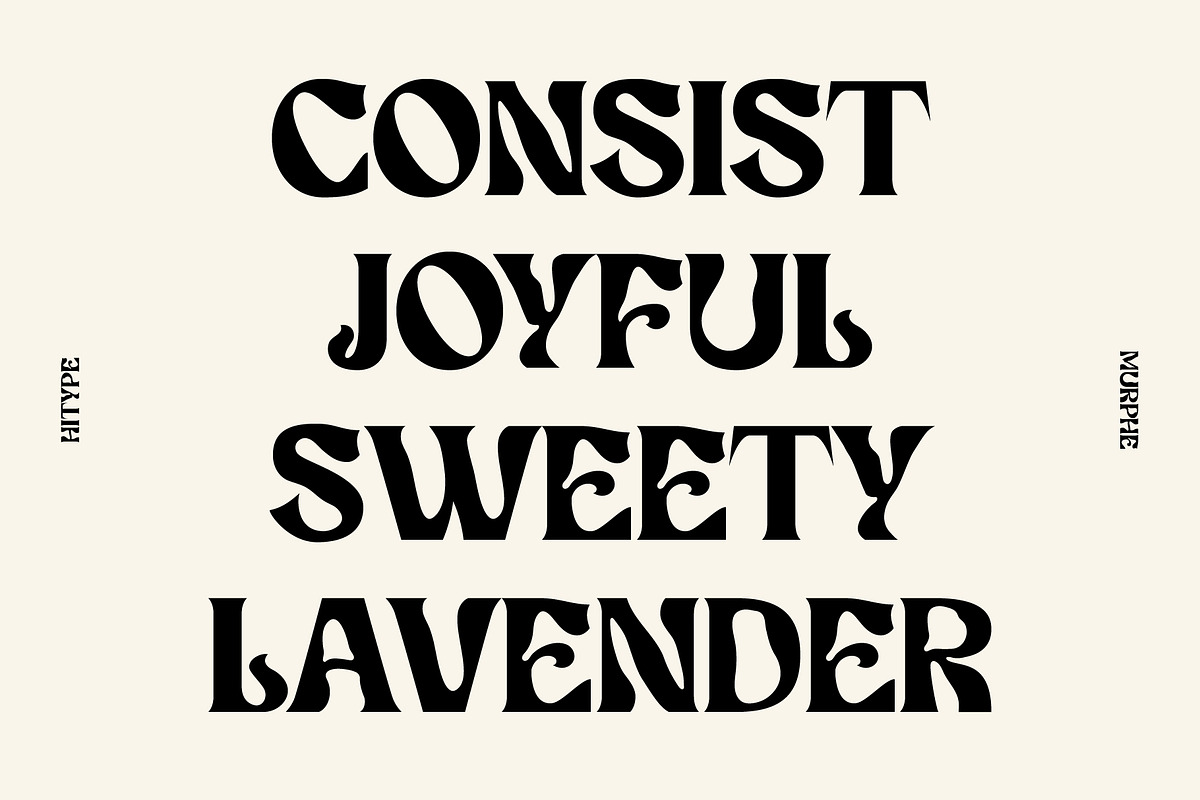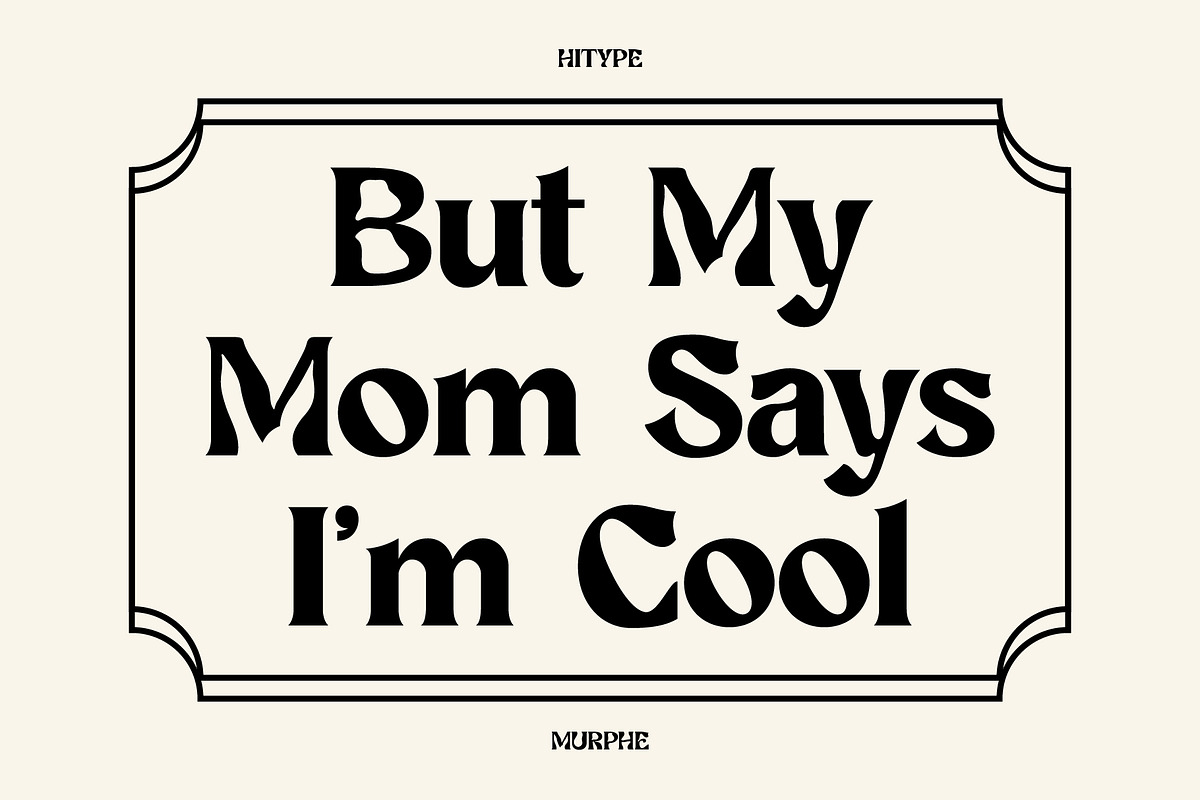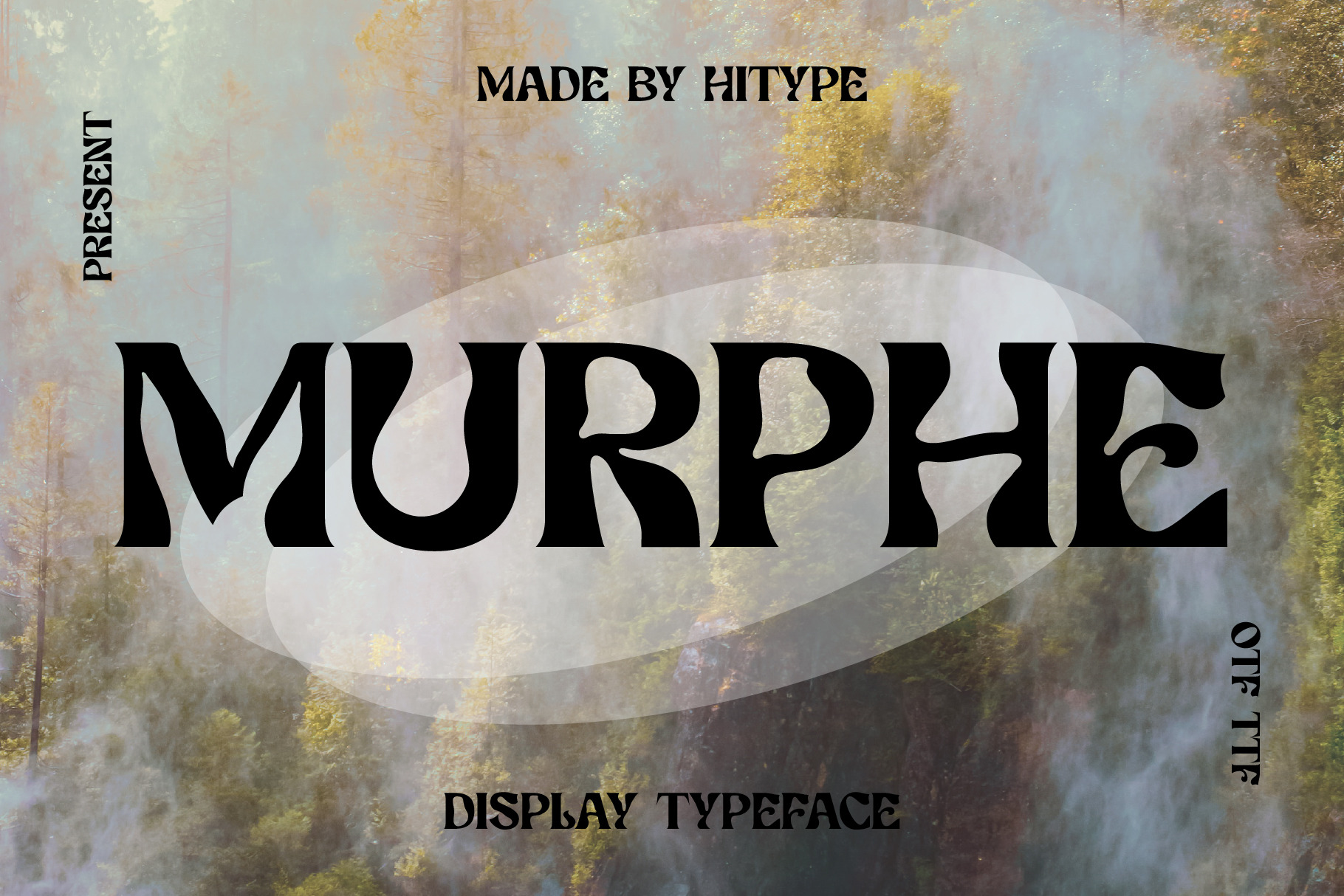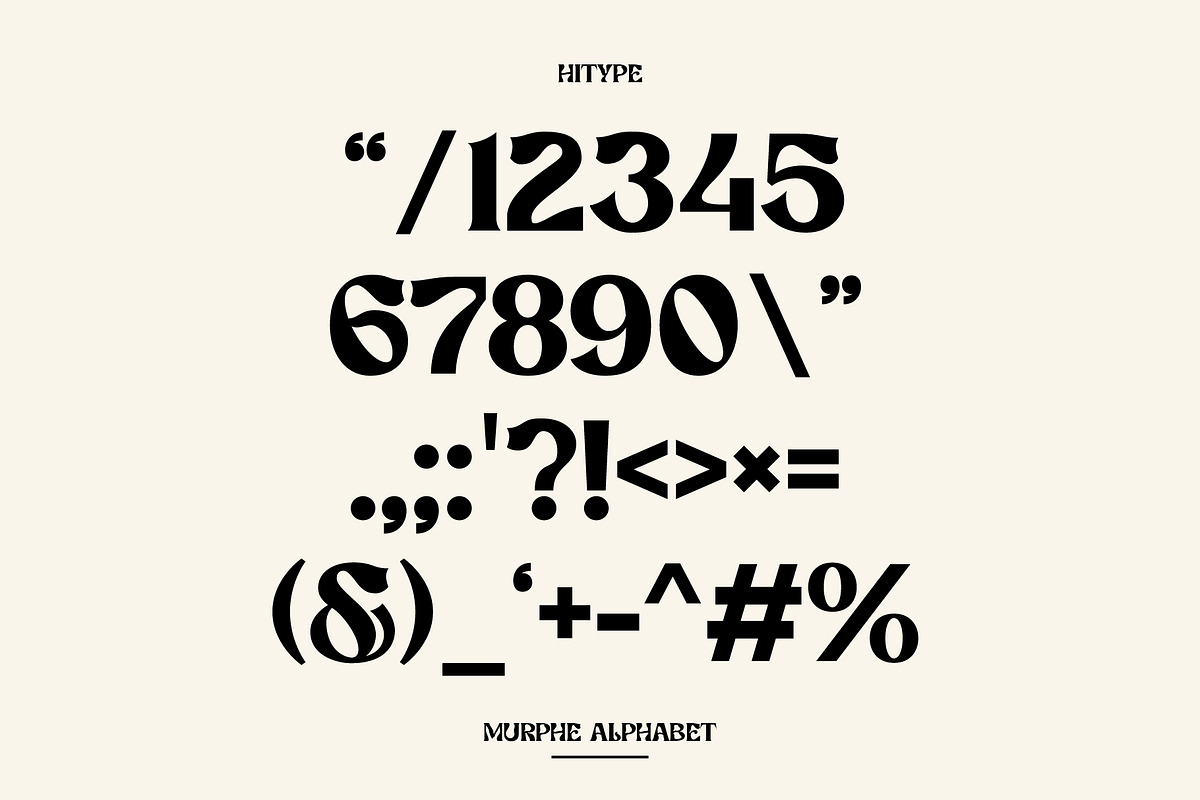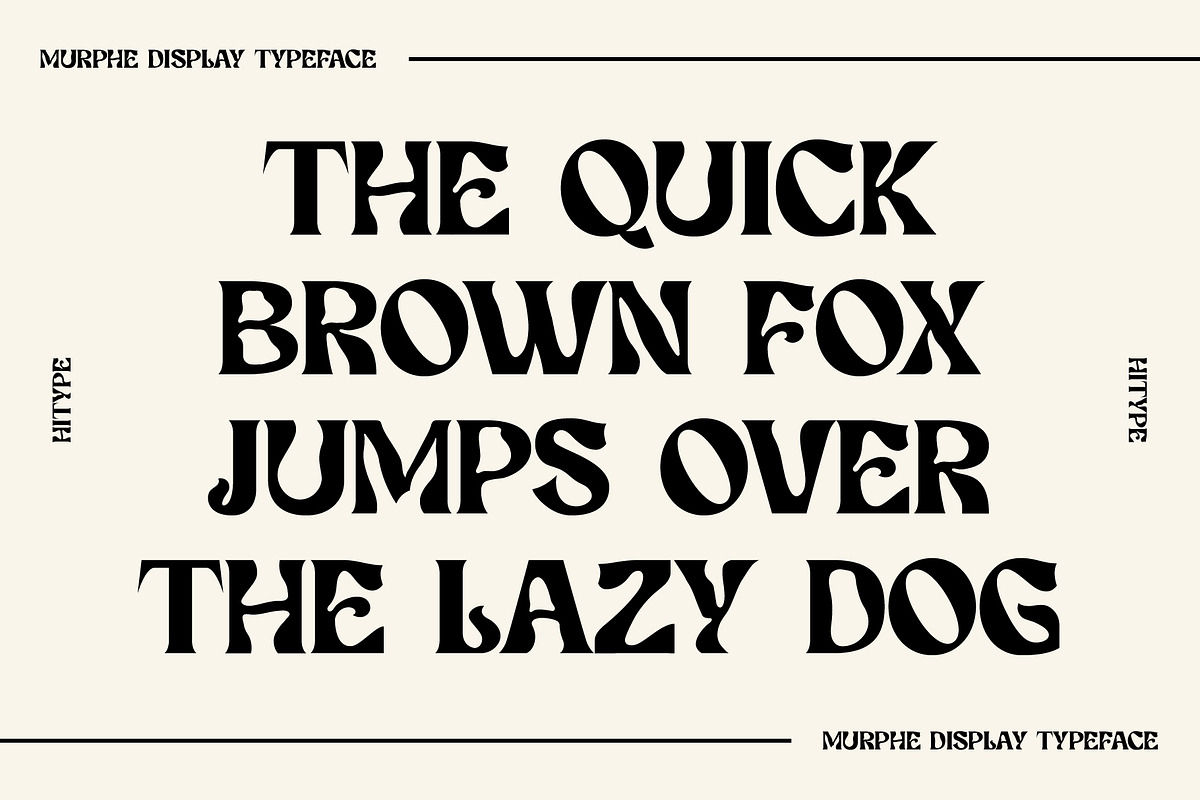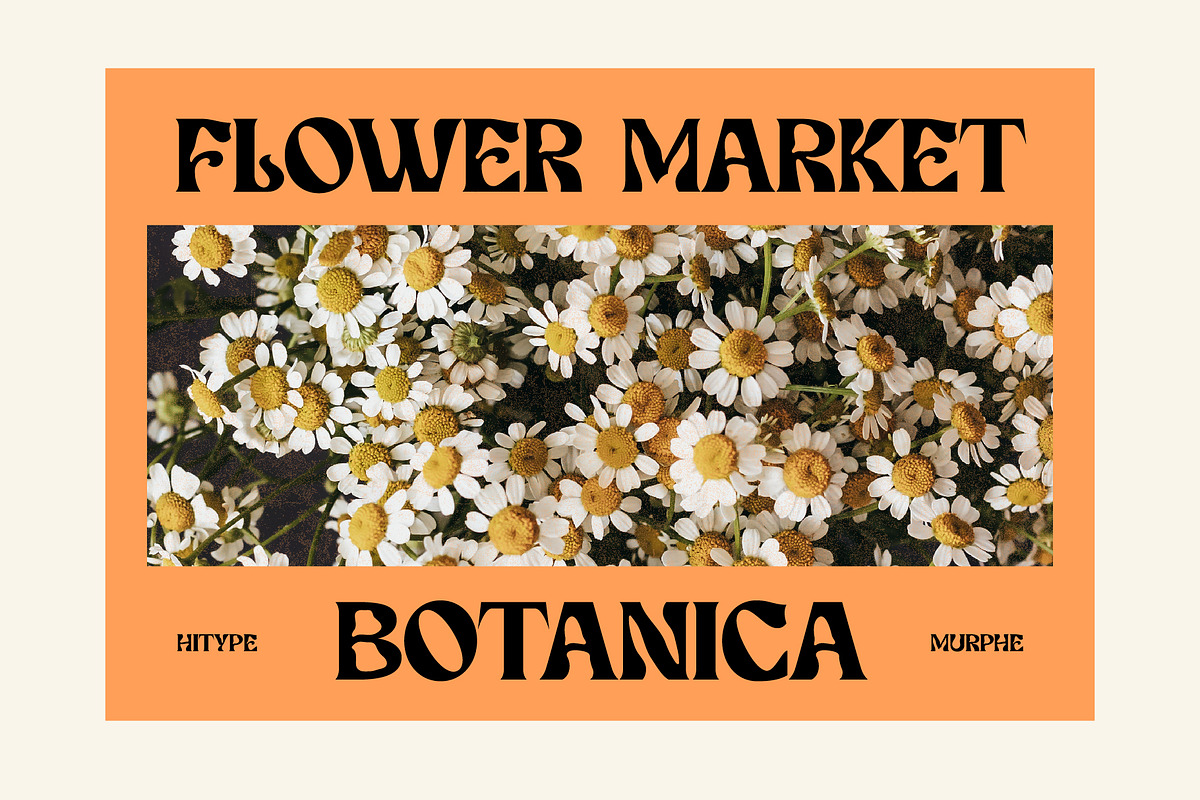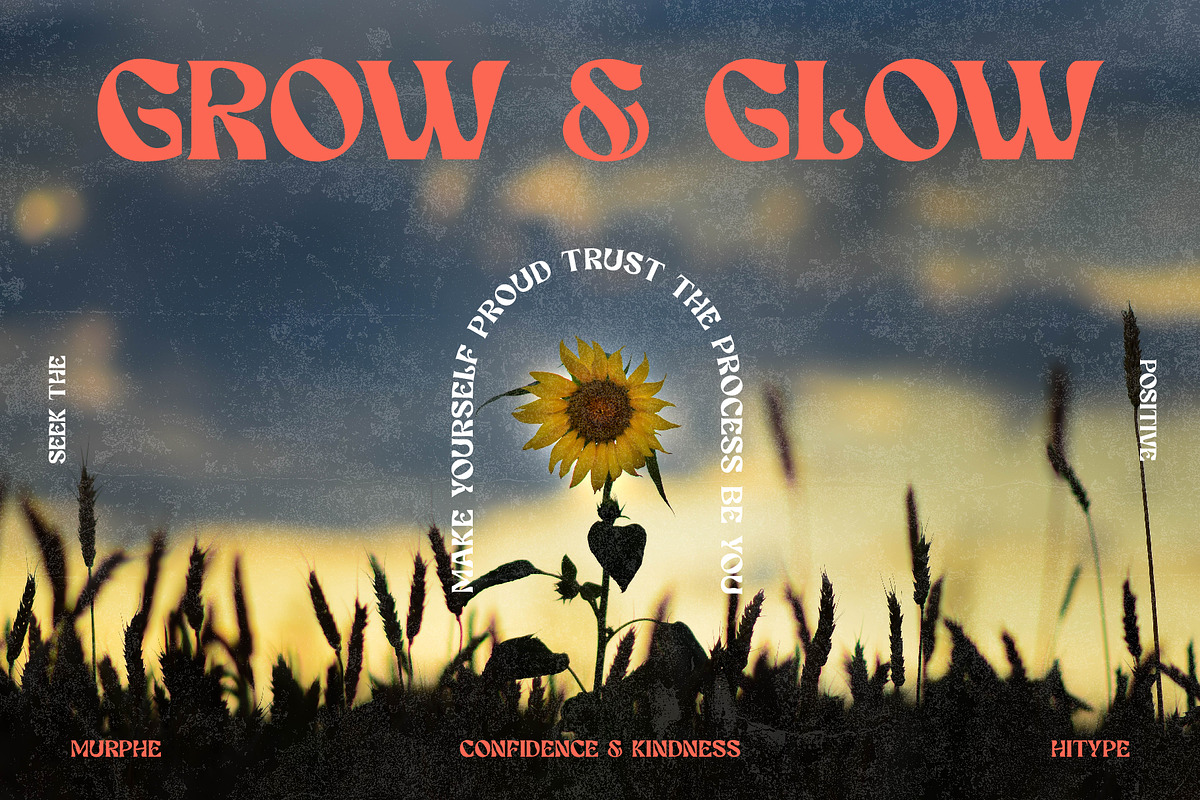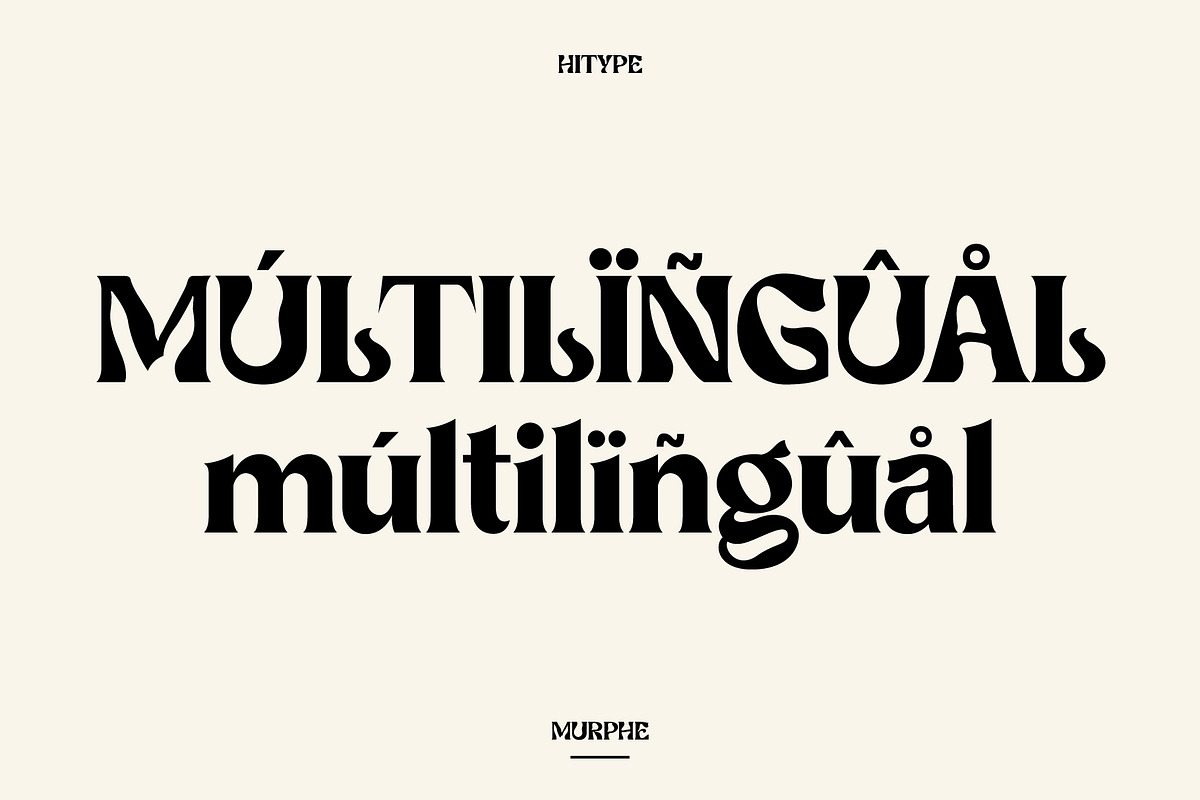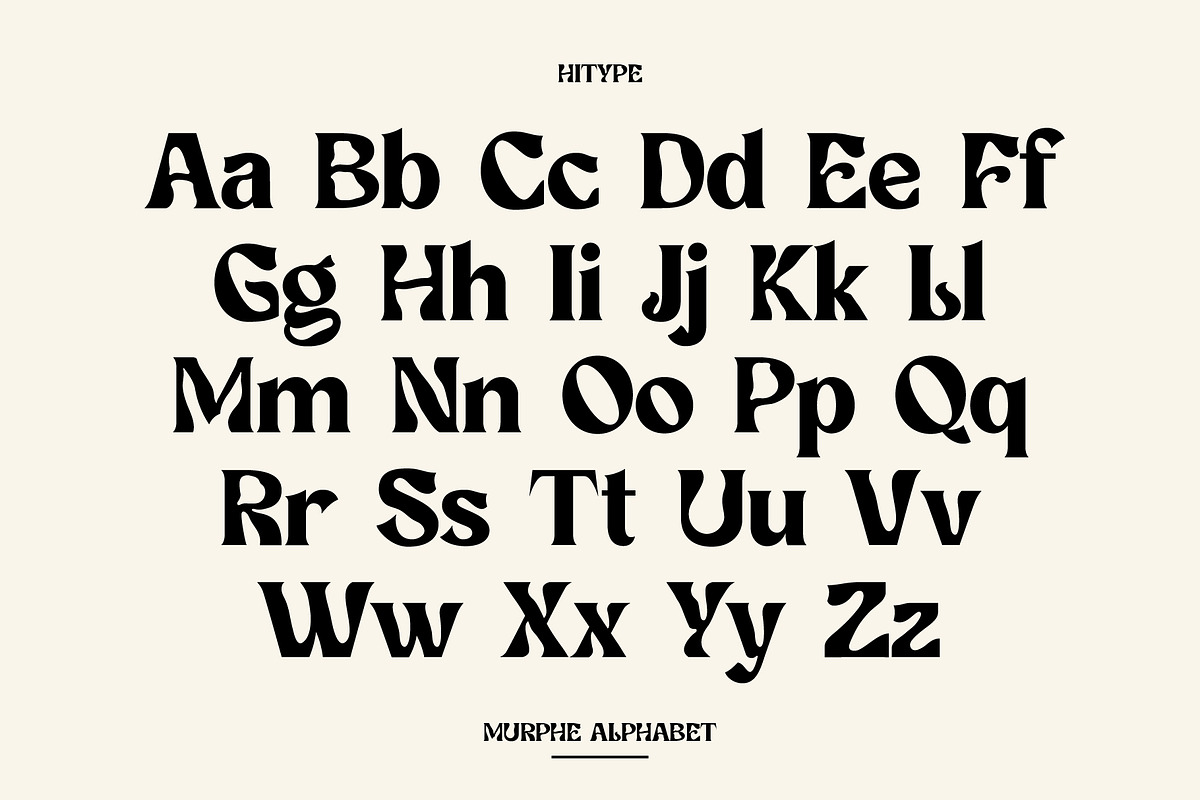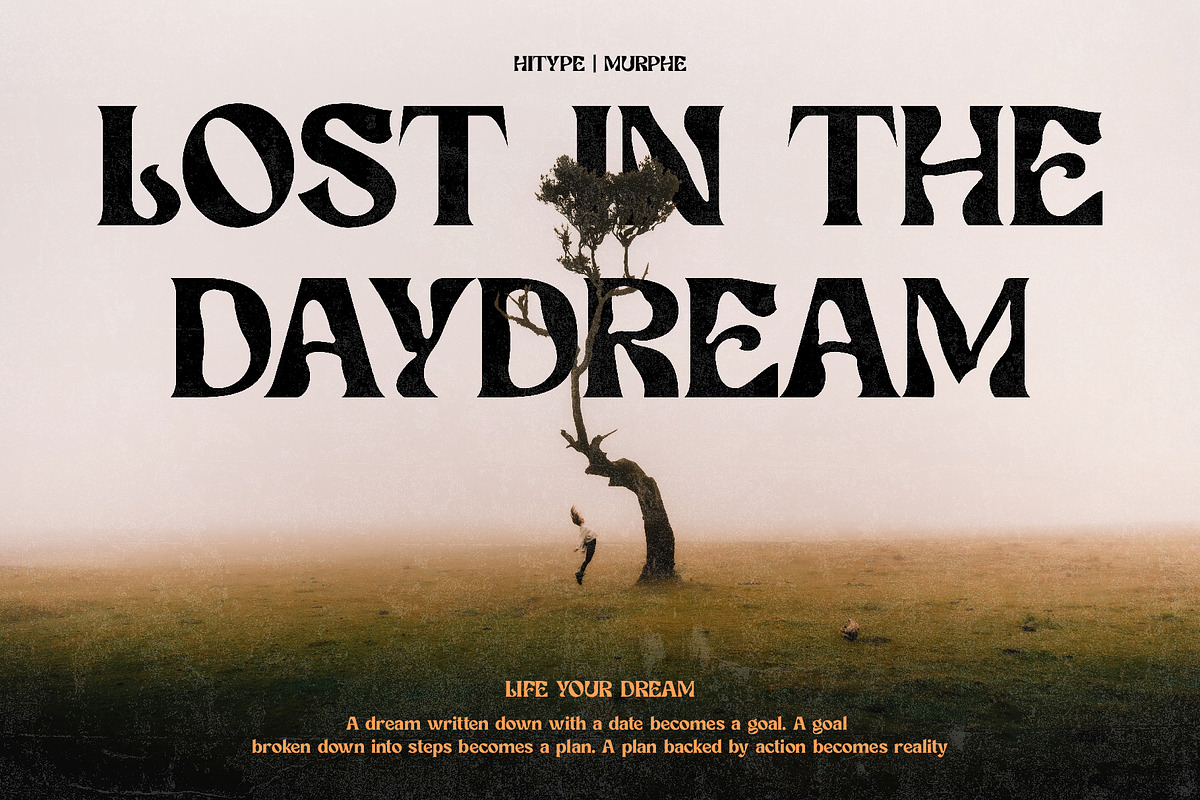
Murphe Display Typeface - Hitype
Murphe is a bold and artistic display typeface with a vintage-inspired touch and striking character details. Designed to bring a sense of elegance and personality, Murphe is perfect for editorial layouts, logos, posters, packaging, branding, and creative projects that need a timeless yet distinctive style. With its expressive forms and confident presence, Murphe elevates both print and digital works with bold sophistication.
Features: Uppercase & lowercase letters – Numbers & punctuation – Multilingual support – OpenType features – Unique display shapes with vintage-inspired elegance – Perfect for editorial, branding & display use